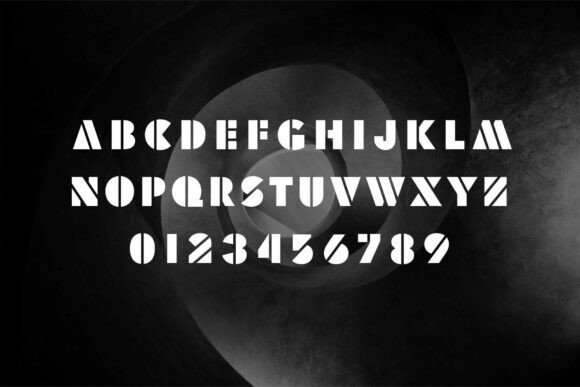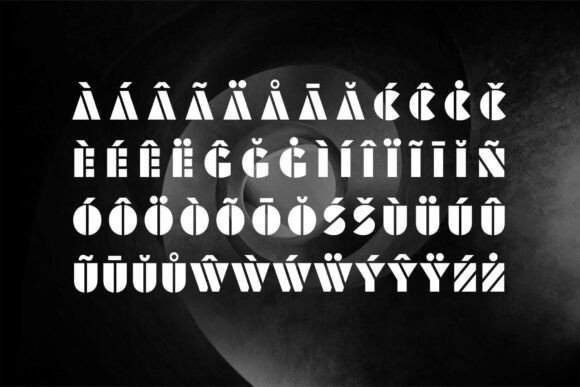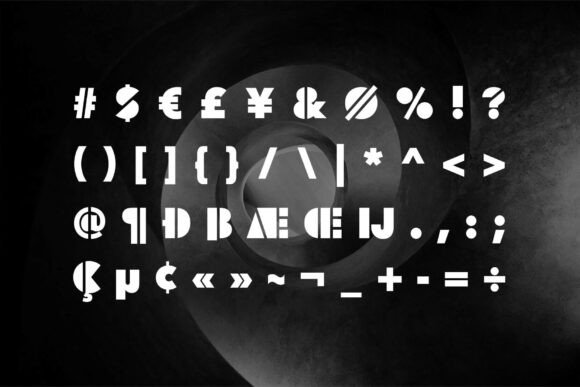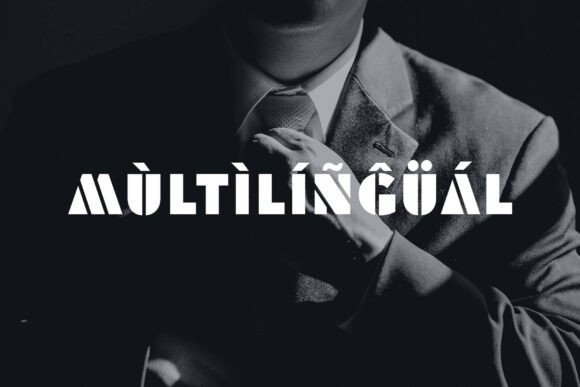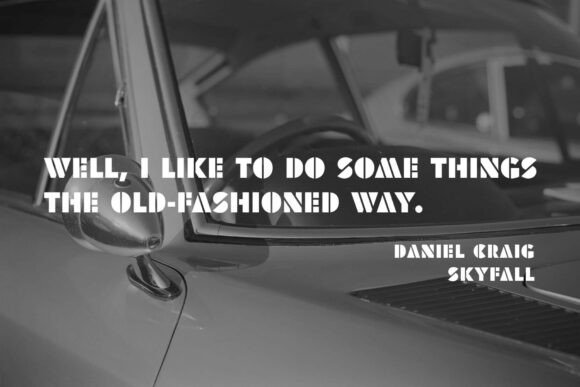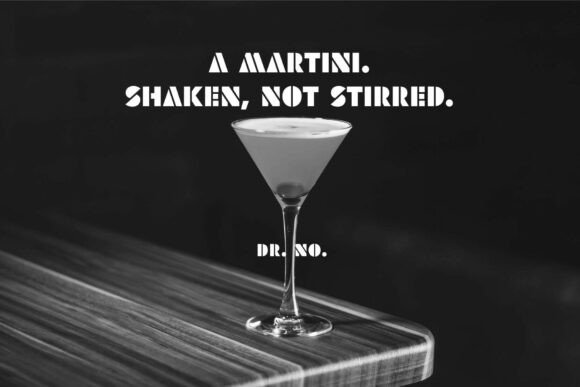
Introduction to Operation Bond Font
Operation Bond is a bold, cinematic display typeface inspired by espionage, military aesthetics, and action movies.
Designed to make an immediate impact, this font delivers a strong visual presence and a powerful, modern look Command attention with Operation Bond, a powerful stencil-style display font that radiates strength and industrial precision.
Key Features of Operation Bond Font
Why Choose Operation Bond Font?